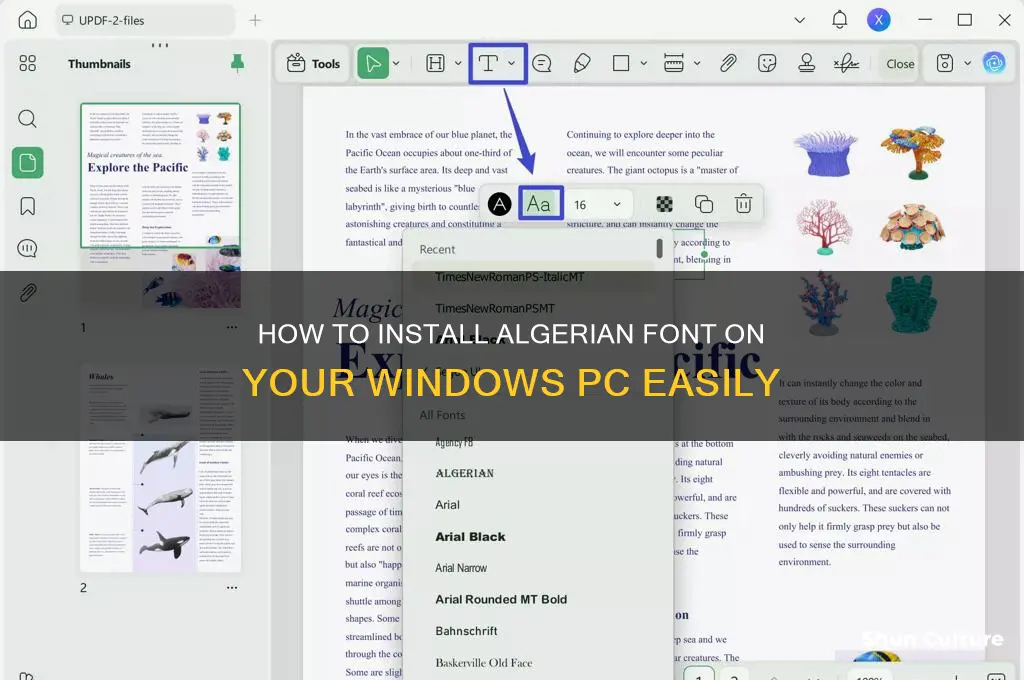
Adding the Algerian font to your Windows computer is a straightforward process that can enhance your design and text editing capabilities. Algerian is a decorative font often used for titles, headings, and creative projects due to its distinctive, bold appearance. To install it, you can download the font file from a reputable source, such as Google Fonts or a trusted font website, and then extract the file if it’s in a compressed format. Next, open the Windows Fonts folder by searching for Fonts in the Start menu, right-clicking in the folder, and selecting Install New Font. Choose the Algerian font file, click OK, and the font will be added to your system, ready for use in applications like Microsoft Word, Adobe Photoshop, or any other text editor. Always ensure the font is properly licensed for your intended use before downloading.
Once you’ve identified a trusted source, download the font file to a familiar location on your computer, such as your Downloads folder. Ensure the file extension is .ttf or .otf, as these are the formats Windows recognizes. Avoid files with unusual extensions or bundled software, which often indicate hidden threats. By taking these precautions, you’ll not only secure the Algerian font but also protect your system from potential harm.
In summary, downloading the Algerian font safely requires diligence in selecting a trusted source. Stick to well-known platforms, verify file formats, and avoid suspicious websites. Whether you choose a free or paid option, prioritizing security ensures a smooth installation process and peace of mind. With the right file in hand, you’re one step closer to adding Algerian’s distinctive style to your Windows computer.
Extract Font Files: Unzip the downloaded file to access the Algerian font file for installation
After downloading the Algerian font file, your next crucial step is extracting it from its compressed format. Most font files are distributed in ZIP archives to reduce file size and simplify sharing. Windows includes a built-in tool for this task, eliminating the need for third-party software in most cases. Simply right-click the downloaded ZIP file, select "Extract All," and choose a destination folder. This process unpacks the font file (typically in .TTF or .OTF format) into a location where you can easily access it for installation.